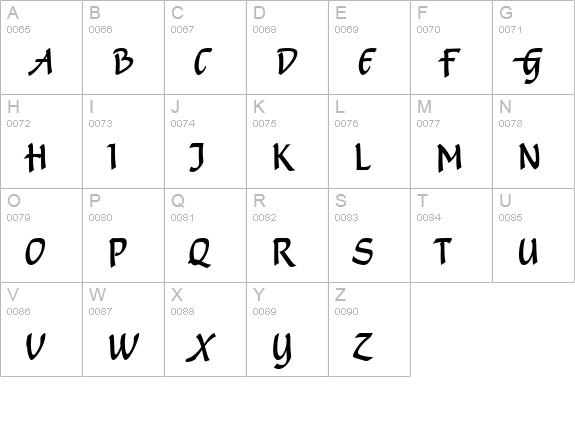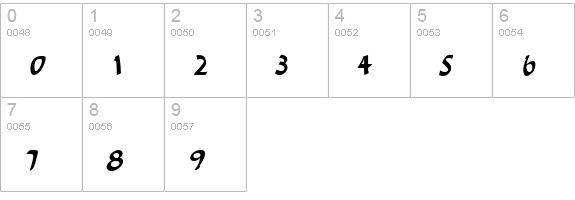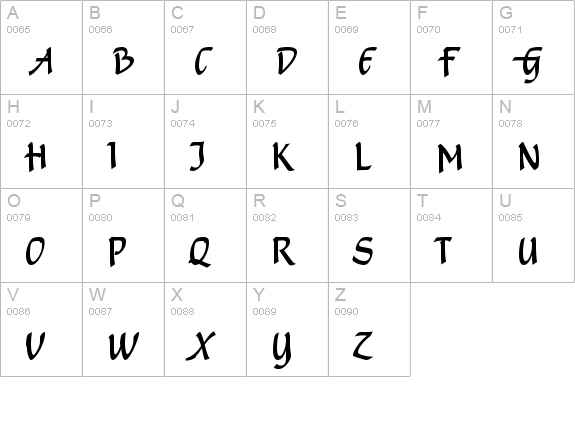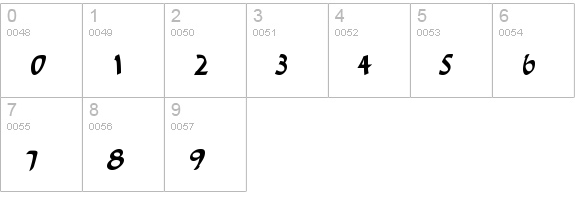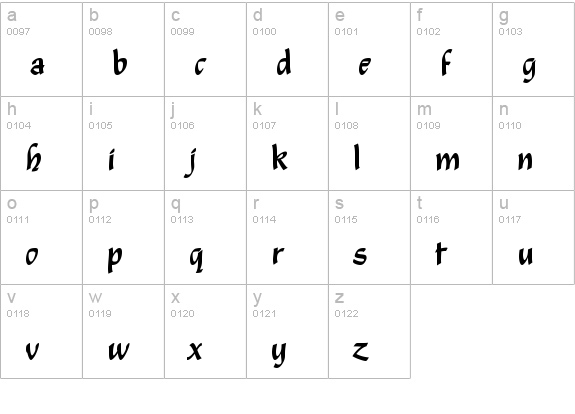
Somerset-Regular is the standard, neutral variant in the Somerset typeface family \xE2\x80\x94 well suited to general body text, paragraphs, and standard typographic work.
Somerset-Regular is a timeless and versatile font that effortlessly combines elegance with readability. With its classic design and clean lines, this font is perfect for a wide range of projects, from branding to editorial design. The balanced proportions and graceful curves of Somerset-Regular make it a go-to choice for designers looking to add a touch of sophistication to their work. The best part? Somerset-Regular is available for free download at FontsMarket.com, making it accessible to all designers looking to elevate their projects with a touch of style. Whether you're working on a logo, website, or print design, Somerset-Regular is sure to make a lasting impression with its refined aesthetic and effortless charm. Download your free copy today and add a touch of sophistication to your next design project with Somerset-Regular.